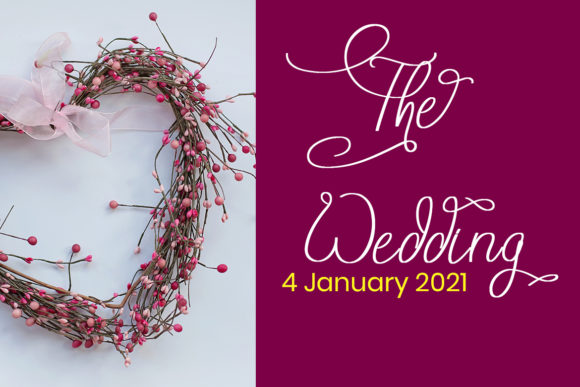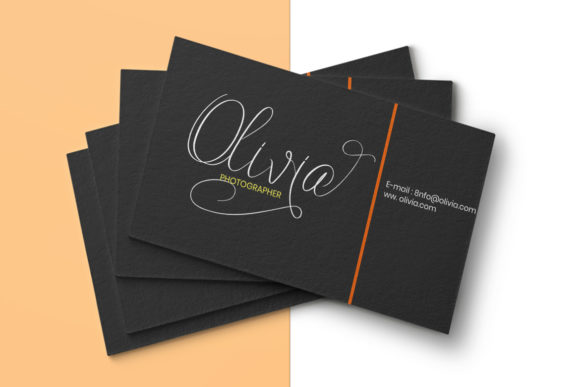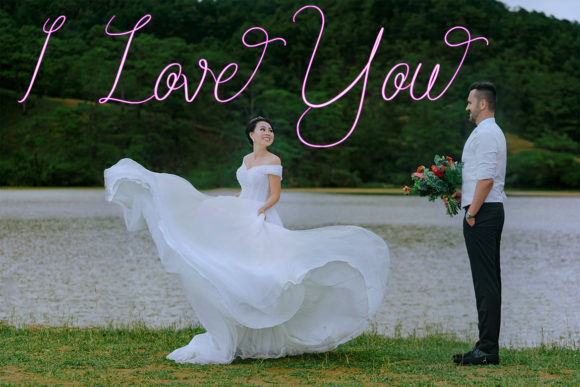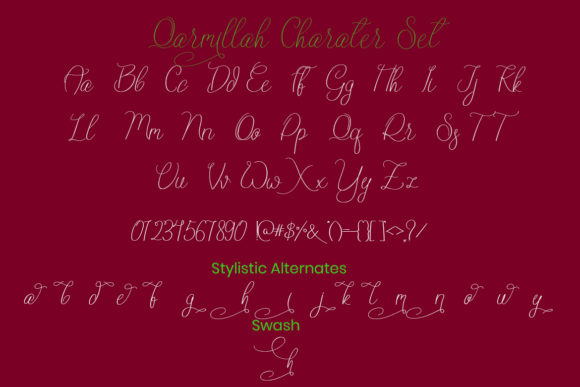
Qurasha Font
About Qurasha Font
Qurasha is a delicate, elegant and modern script font. It has beautiful and well balanced characters. Qurasha features a varying baseline, smooth lines, gorgeous glyphs and stunning alternates. Add it to your most creative ideas and notice how it makes them come alive!